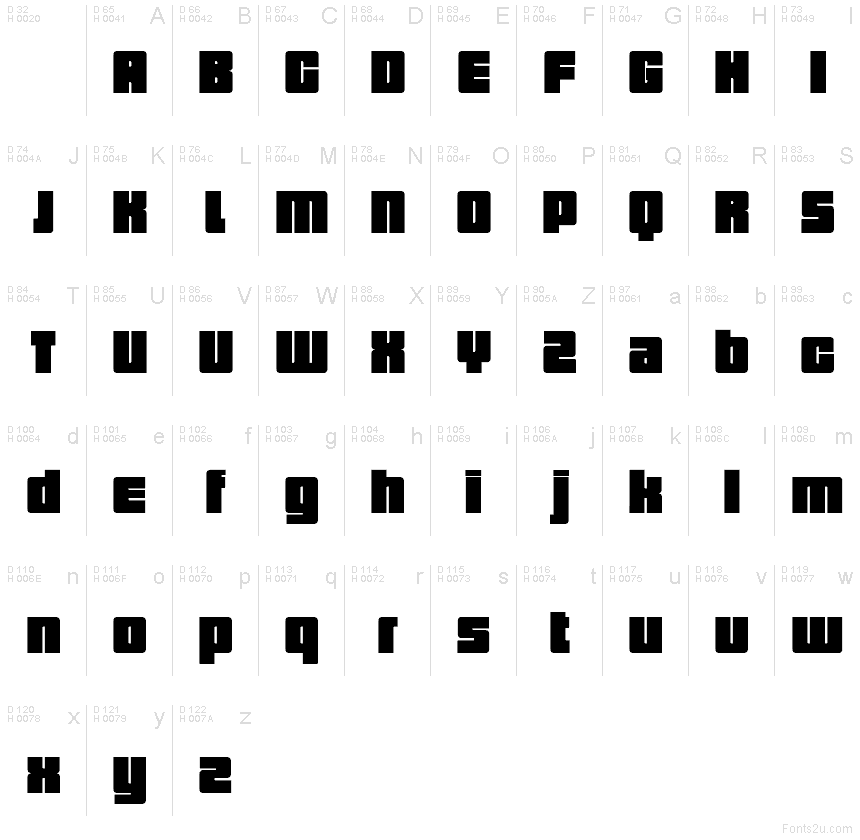
CS Beyond Regular Demo
CS Beyond font by Craft Supply Co. is a bold display typeface with an industrial feel and geometric modular appearance. A vintage-inspired typography style combines futuristic hints presented in the vertical and horizontal strokes of every letter which makes it unique, attention-grabbing, and trendy to engage modern audiences.